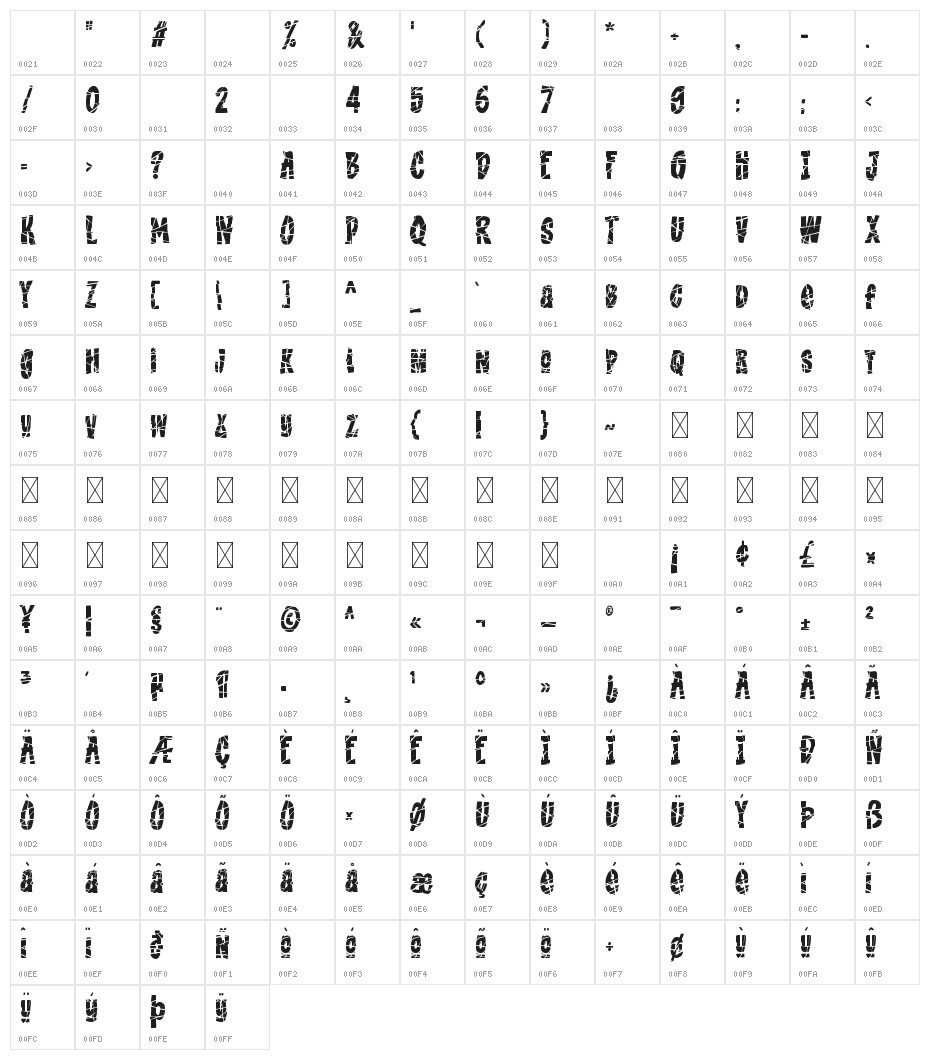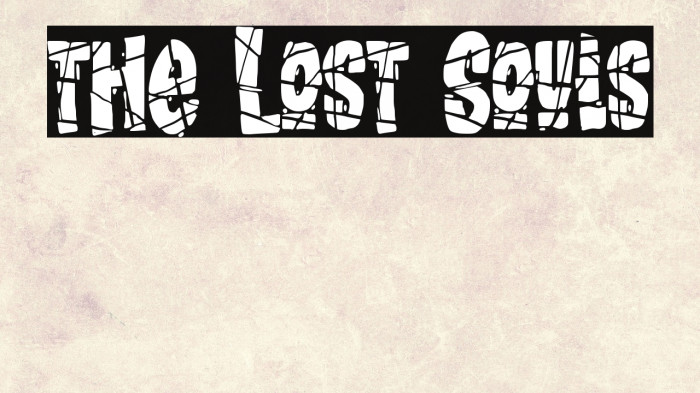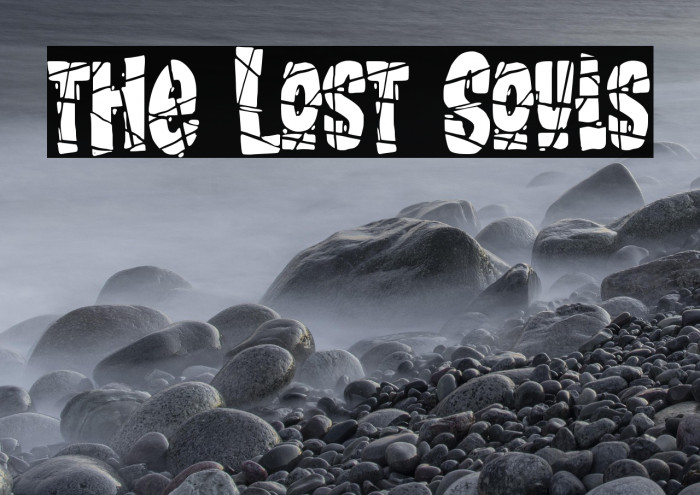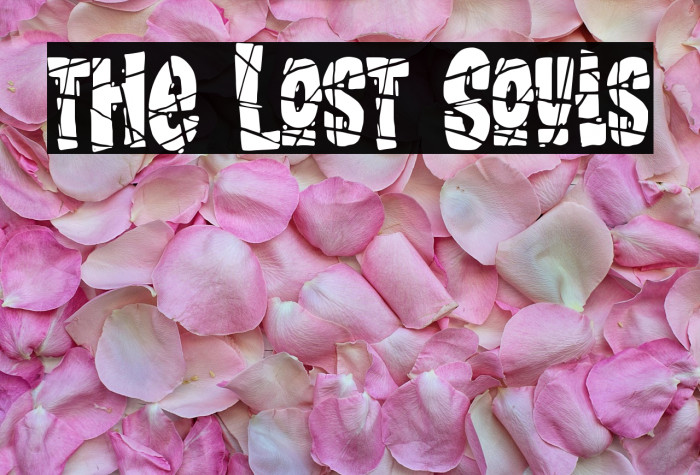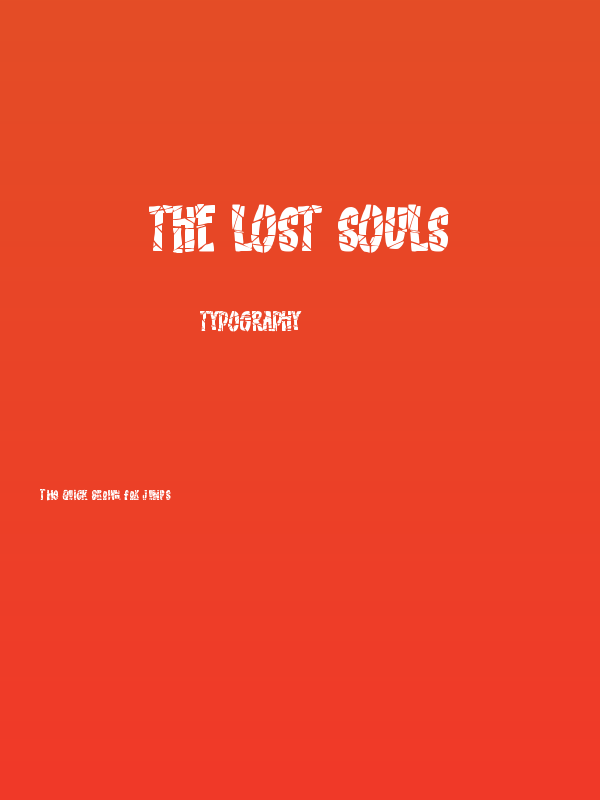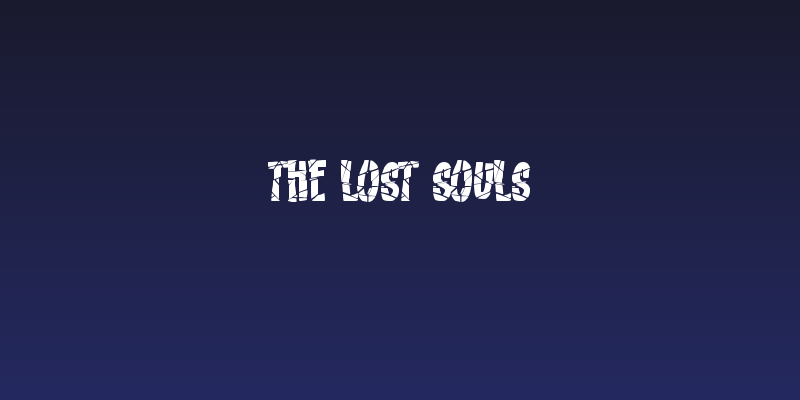
the Lost Souls Font
the Lost Souls Description
This font features a bold and fragmented design, with each character appearing as if it is shattered or broken into pieces. The style is highly decorative and visually striking, making it ideal for attention-grabbing designs. The uppercase and lowercase letters maintain a consistent shattered pattern, creating a cohesive look across the alphabet. Numbers and special characters follow the same fragmented aesthetic, ensuring uniformity throughout. The font's unique appearance lends itself well to projects that require a dramatic or edgy feel.
| Proposed Projects | Ideal for horror-themed posters, album covers, video game titles, or any project needing a dramatic, edgy aesthetic. |